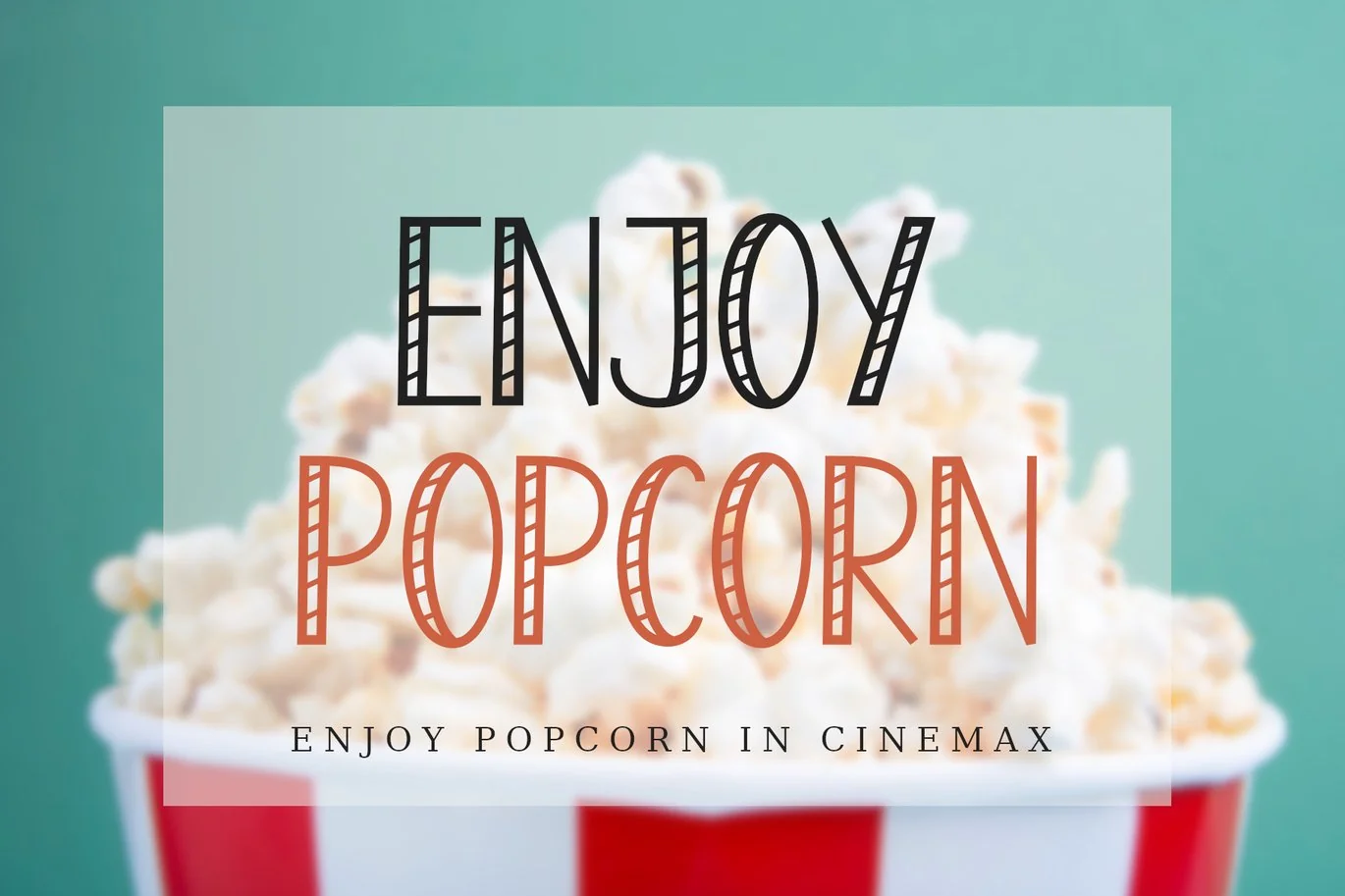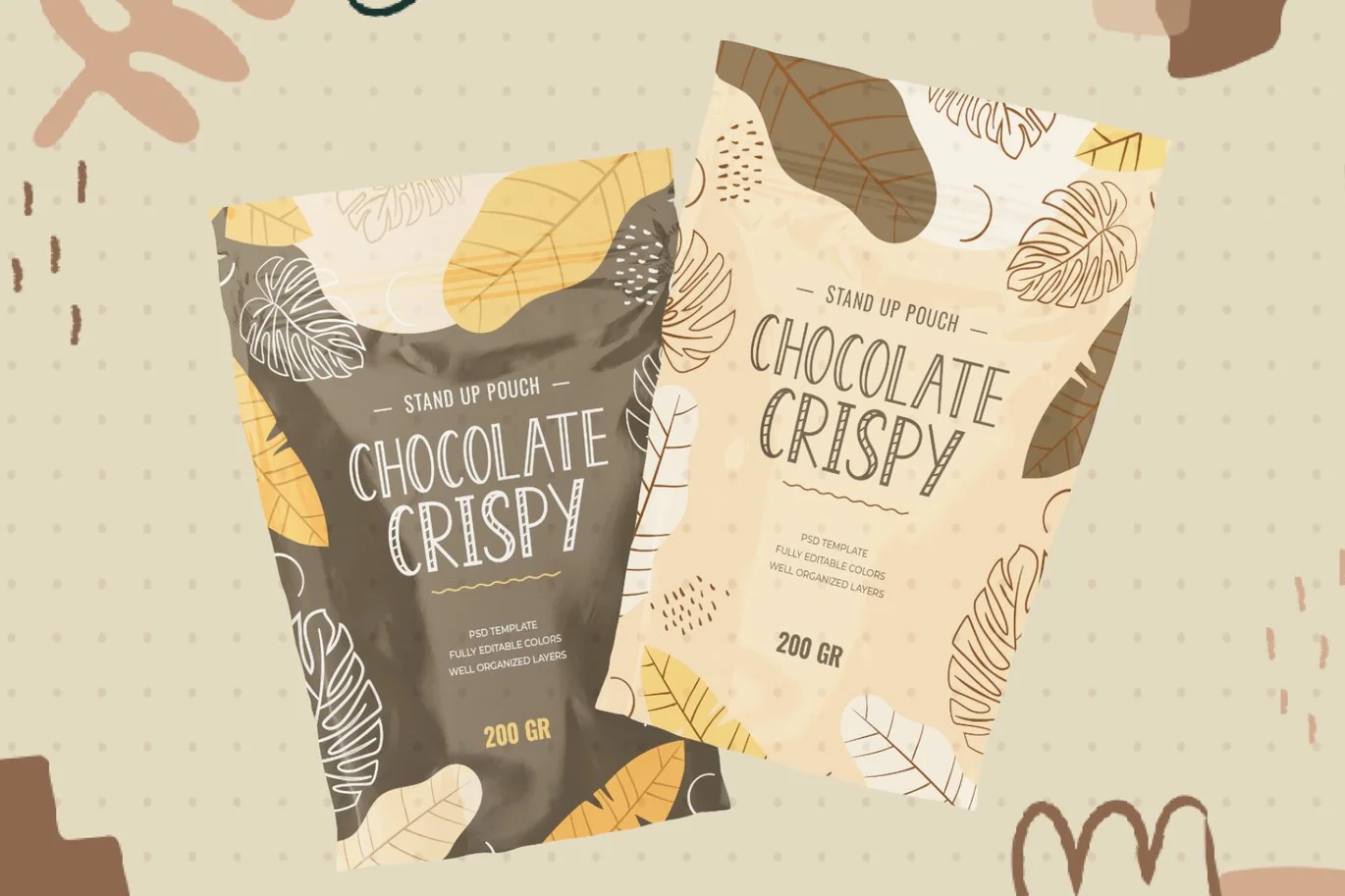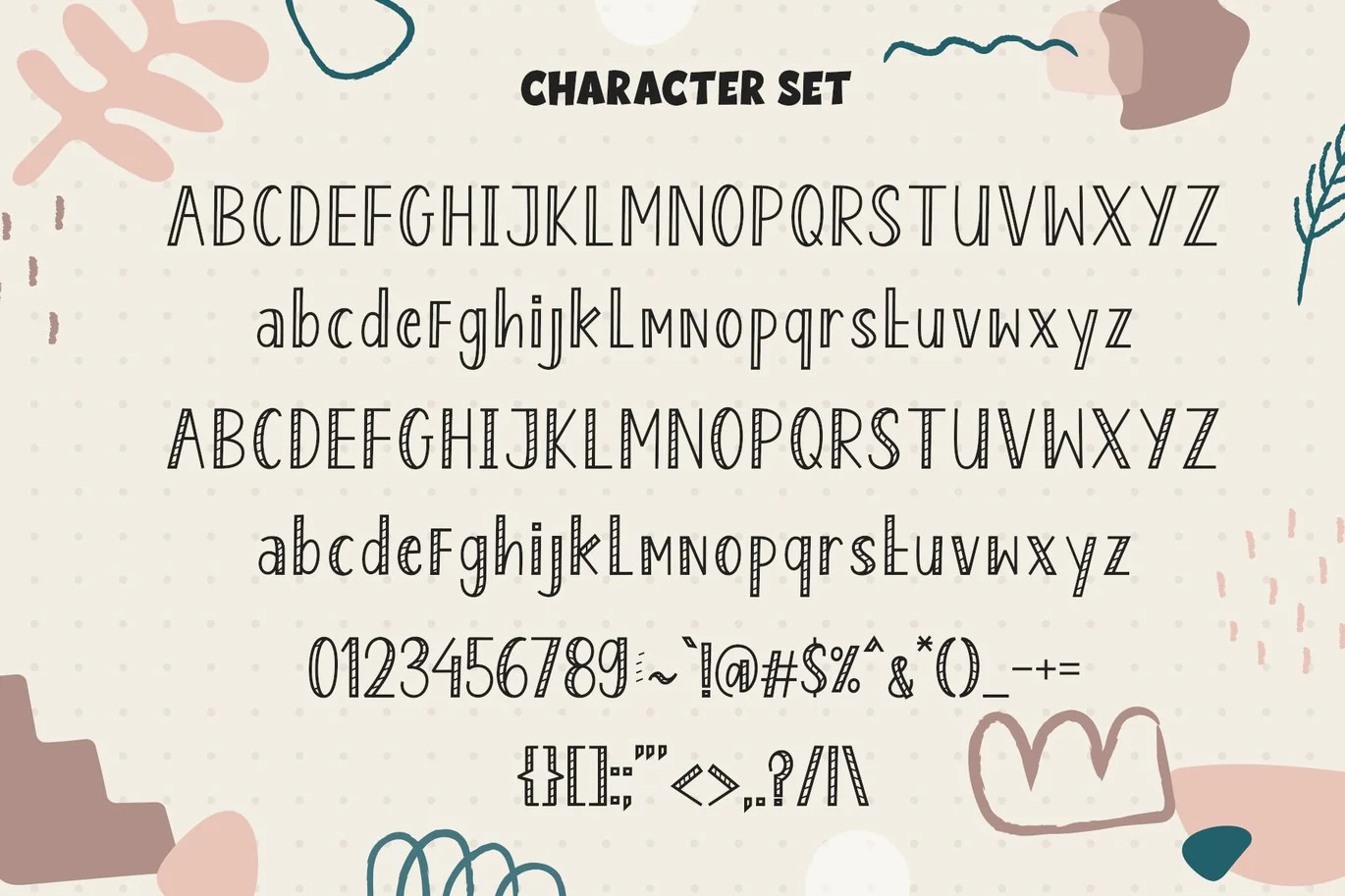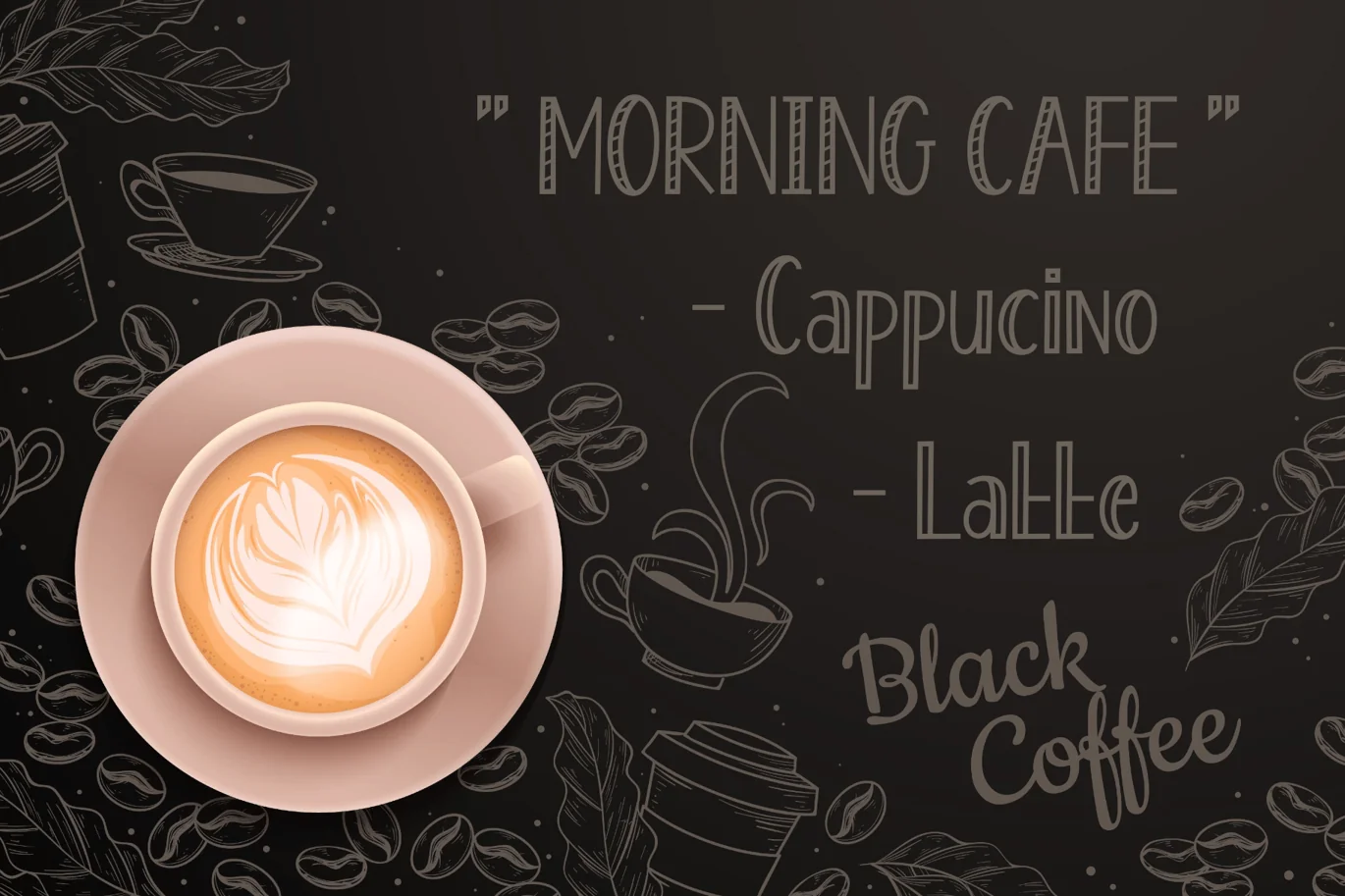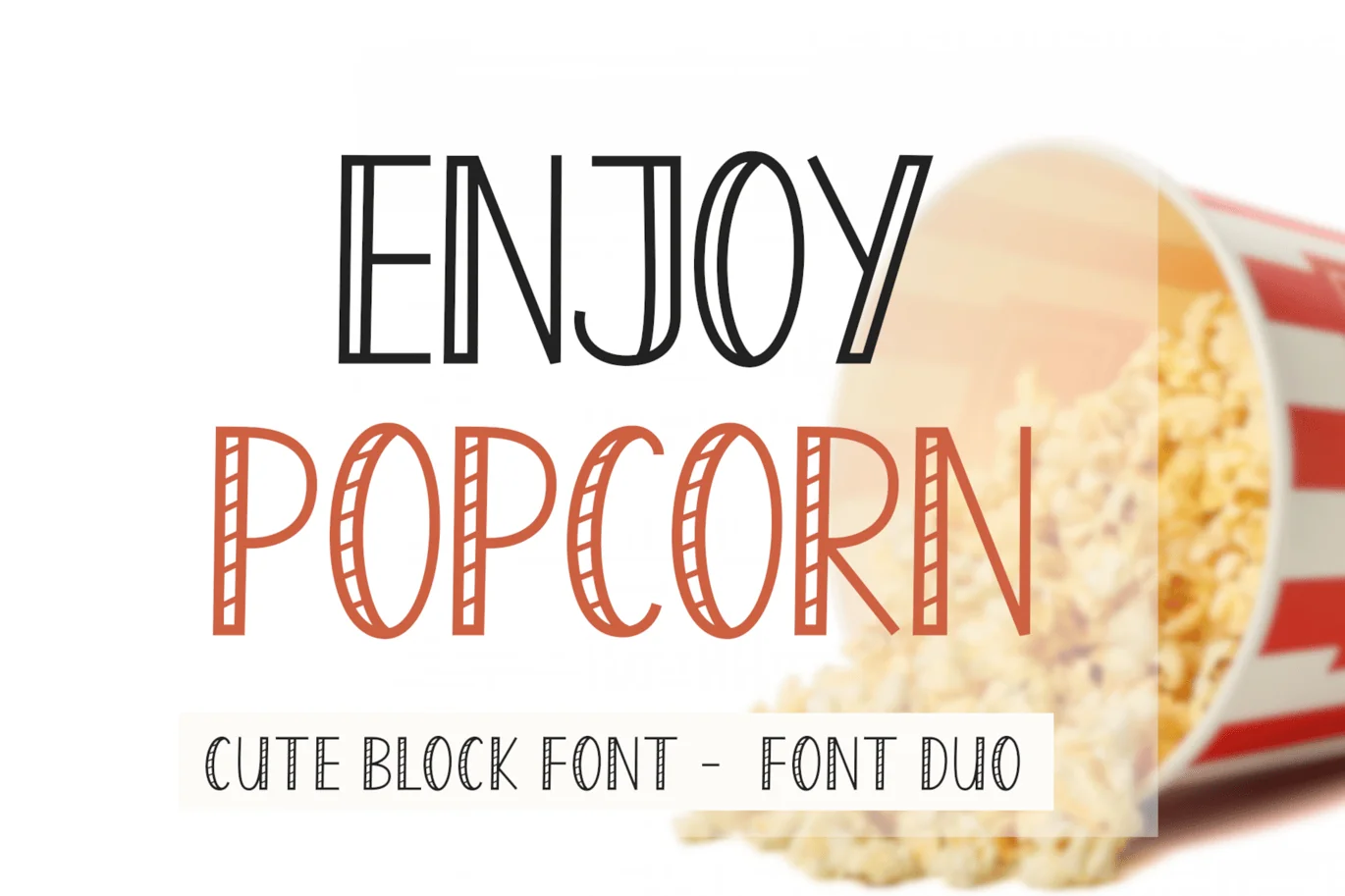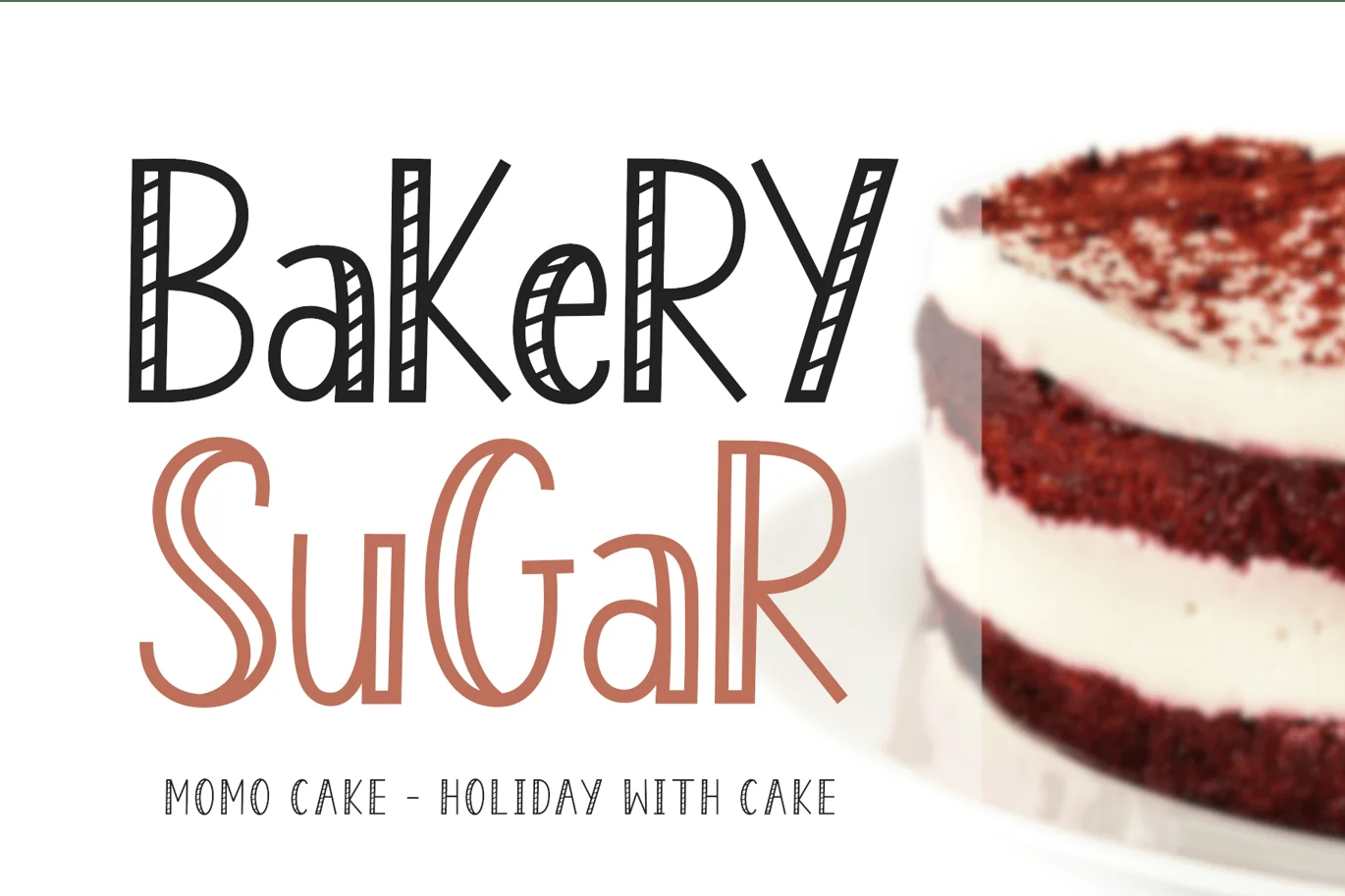
Enjoy Popcorn Monoline Display Kids Font
Enjoy Popcorn Monoline Display Kids Font ALD
Enjoy Popcorn is a block font with a sweet touch to each shape and enjoy popcorn consists of 2 styles that you can combine.
Enjoy Popcorn is suitable for various designs such as posters, stickers, logos, packaging, greeting cards, clothes and much more.